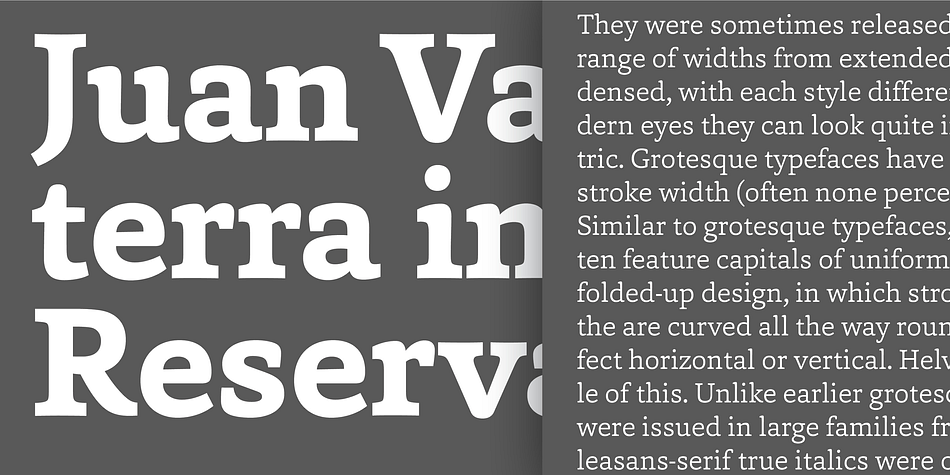
Capita
Capita is a serif font family. This typeface has twelve styles and was published by Hoftype.
Capita, a serif dominated face in a new syle. Strong in appearance, with controlled motion of the contour, vivid and warm, with gentle flow – it avoides any harshness of many slab serifs.
Well balanced proportions makes it qualified as reading type, yet with its puissant qualities ideal for headlines and subheads.
Capita is well-equipped for ambitious typographie. The Capita family consists of 12 styles, comes in OpenType format with extended language support for more than 40 languages. All weights contain small caps, proportional lining figures, tabular lining figures, proportional old style figures, lining old style figures, matching currency symbols, fraction- and scientific numerals.